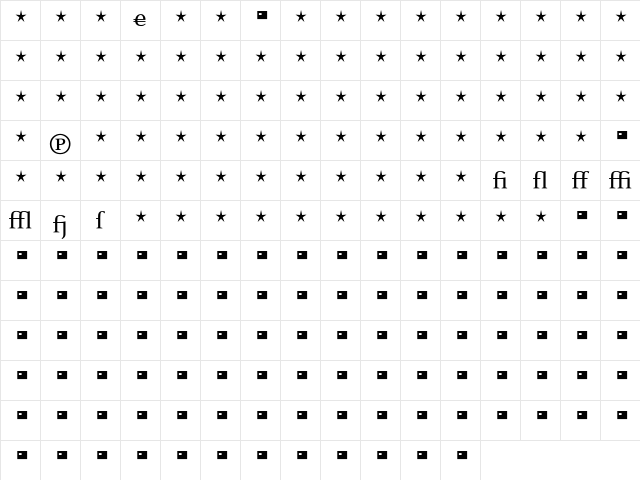
CelesteST RegularExpert
Style: RegularExpert
Design Context for CelesteST
CelesteST is a composed and adaptable typeface that performs quietly and consistently across a wide range of design contexts.